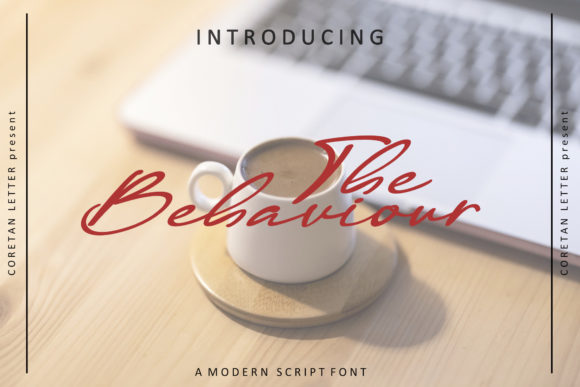
Behold "The Behaviour Font" - An Exquisite Handwritten Masterpiece That Will Ignite Your Creativity
Embark on a typographic odyssey with The Behaviour Font, a captivating handwritten script font that exudes elegance and charm. Its graceful curves and playful strokes evoke a sense of nostalgia, reminiscent of handwritten letters from a bygone era. Immerse yourself in a world of artistic expression as you witness how this font breathes life into your designs, transforming them into captivating visual masterpieces.
With The Behaviour Font, every letter is a unique work of art, meticulously crafted to convey emotion and personality. Its carefully designed swashes and ligatures add an extra touch of sophistication, making it the perfect choice for creating logos, branding, and quotes that demand attention. Unleash your creativity and let your imagination run wild as you explore the endless possibilities that The Behaviour Font holds.
As a PUA-encoded font, The Behaviour Font grants you effortless access to its entire repertoire of glyphs and swashes. This remarkable feature allows you to effortlessly incorporate intricate details and flourishes into your designs, elevating them to new heights of artistry. Say goodbye to limitations and embrace the freedom to express yourself fully through typography.
Step into the world of The Behaviour Font and let your designs blossom with newfound beauty and elegance. Experience the joy of creating logos that capture the essence of your brand, branding elements that exude professionalism, and quotes that resonate with emotional depth. The Behaviour Font is your gateway to a world of typographic delight, where your creativity knows no bounds.